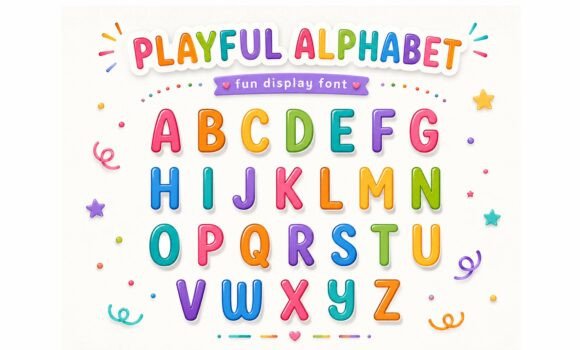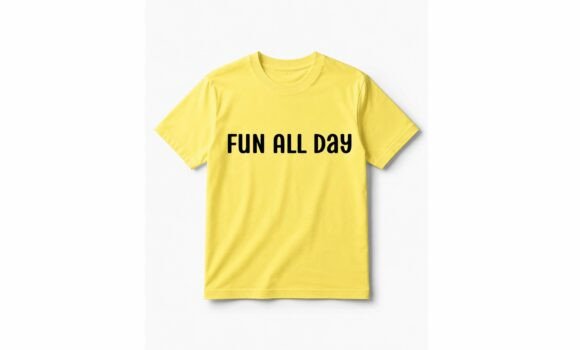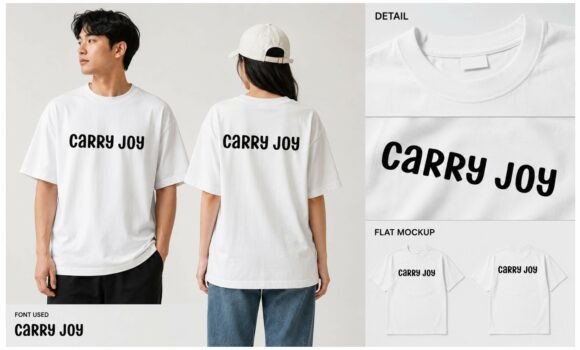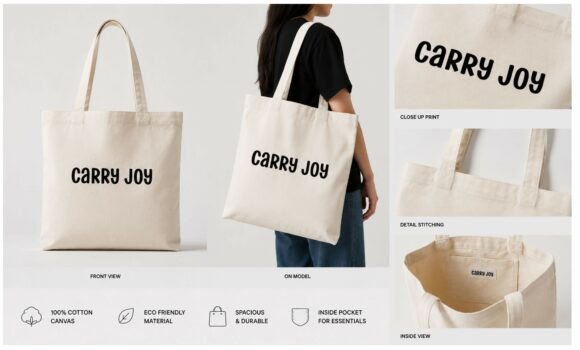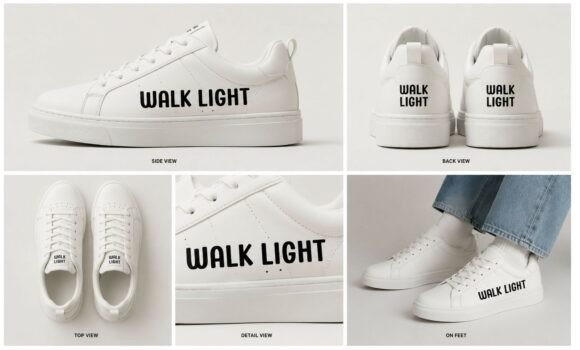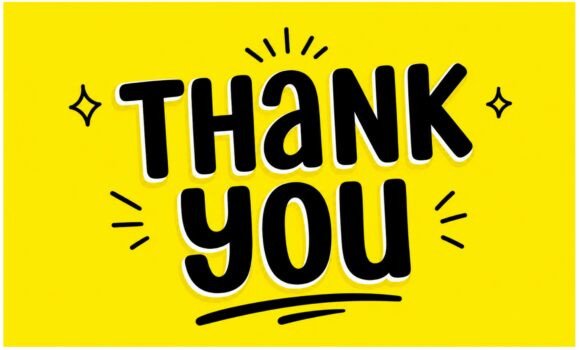
Introduction to Juicy Parade Font
Juicy Parade is a fun and cheerful display font filled with colorful charm and playful energy.
Inspired by sweet fruits, candy vibes, and kawaii aesthetics, this font is perfect for kids’ projects, branding, packaging, posters, stickers, t-shirts, Cricut crafts, invitations, social media graphics, and more With its bold rounded letters and adorable personality, Juicy Parade brings happiness and creativity into every design.
Key Features of Juicy Parade Font
Why Choose Juicy Parade Font?
Juicy Parade Font offers exceptional quality and versatility, making it a valuable addition to your design toolkit. Whether you’re creating for personal projects or commercial use, Juicy Parade Font delivers professional results.